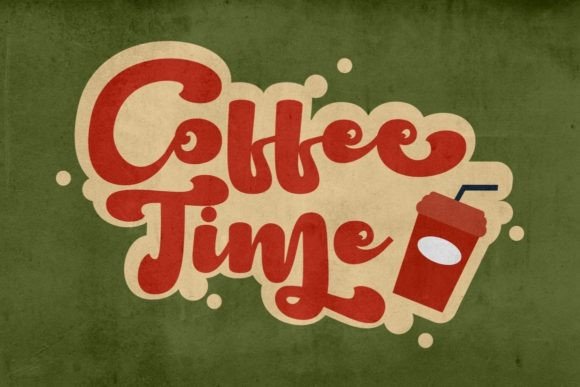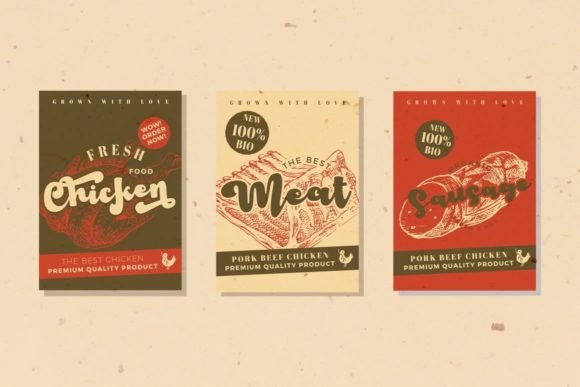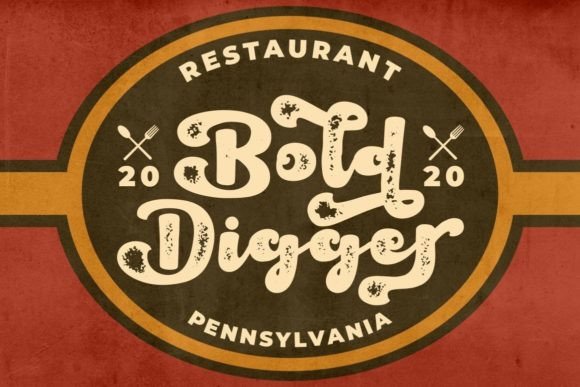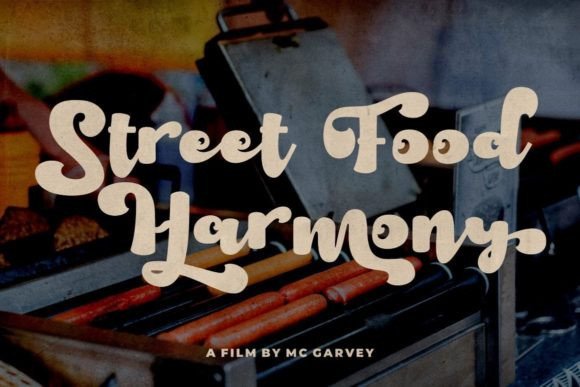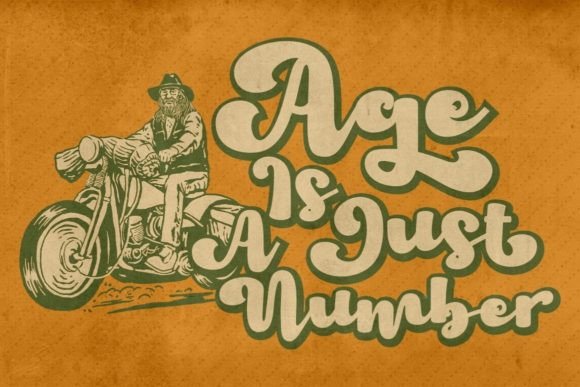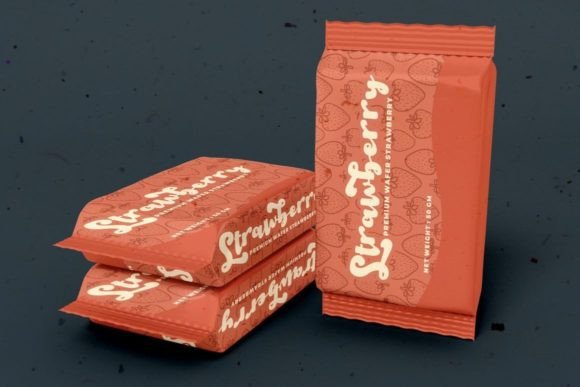
Introducing Harmony Vintage Font: The Perfect Blend of Retro Charm and Luxury Aesthetics
Are you a designer or crafter looking for a font that embodies the essence of vintage luxury? Look no further than Harmony Vintage Font, a bold and beautiful script font that combines the best of retro charm with high-end aesthetics. In this article, we’ll take a closer look at what makes Harmony Vintage Font so special and how you can use it to elevate your design projects.
The Beauty of Harmony Vintage Font
Harmony Vintage Font is a stunning script font that exudes luxury and sophistication. Its bold, flowing lines and intricate details make it perfect for a wide range of design projects, from logos and branding to posters, packaging, and book covers. With its vintage flair, this font is sure to add a touch of nostalgia and elegance to any design.
One of the standout features of Harmony Vintage Font is its PUA (Private Use Area) encoding. This means that you can access all of the glyphs and swashes with ease, giving you complete creative control over your designs. Whether you’re looking to add a touch of whimsy or create a more formal, luxurious look, Harmony Vintage Font has got you covered.
Uses for Harmony Vintage Font
So, what can you use Harmony Vintage Font for? The possibilities are endless! Here are just a few ideas to get you started:
- Logos and Branding: Create a memorable and luxurious brand identity with Harmony Vintage Font. Its bold, eye-catching design makes it perfect for logos, business cards, and other marketing materials.
- Posters and Flyers: Add a touch of vintage glamour to your posters and flyers with Harmony Vintage Font. Its bold lines and intricate details make it perfect for headlines, titles, and other eye-catching elements.
- Packaging: Give your product packaging a luxurious makeover with Harmony Vintage Font. Its elegant design makes it perfect for labels, tags, and other packaging materials.
- Book Covers: Create a stunning book cover with Harmony Vintage Font. Its bold, eye-catching design makes it perfect for titles, subtitles, and other design elements.
- Clothes and Apparel: Add a touch of vintage charm to your clothing and apparel designs with Harmony Vintage Font. Its bold, flowing lines make it perfect for t-shirts, hoodies, and other clothing items.
Why Choose Harmony Vintage Font?
So, why should you choose Harmony Vintage Font for your design projects? Here are just a few reasons:
- Unique and Eye-Catching: Harmony Vintage Font is a truly unique and eye-catching font that will set your designs apart from the crowd.
- High-Quality Design: With its bold lines, intricate details, and luxurious aesthetic, Harmony Vintage Font is a high-quality font that will elevate your designs to the next level.
- Easy to Use: Thanks to its PUA encoding, Harmony Vintage Font is easy to use and customize. You can access all of the glyphs and swashes with ease, giving you complete creative control over your designs.
- Versatile: Harmony Vintage Font is a versatile font that can be used for a wide range of design projects, from logos and branding to posters, packaging, and book covers.
In conclusion, Harmony Vintage Font is a stunning script font that combines the best of retro charm with high-end aesthetics. With its bold lines, intricate details, and luxurious design, it’s perfect for a wide range of design projects. Whether you’re a designer or crafter, Harmony Vintage Font is a must-have font that will elevate your designs to the next level. So why wait? Try Harmony Vintage Font today and see the difference it can make in your designs!